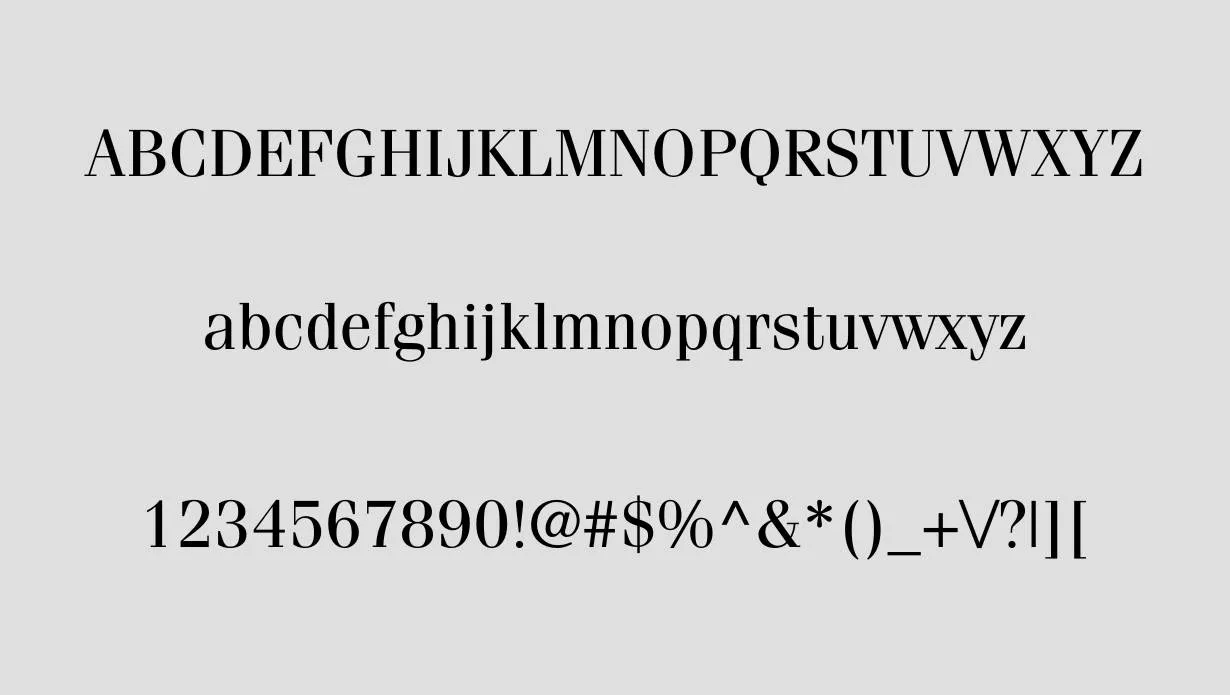
Happy Gilmore Font has a bold and impactful design, often used in headlines, posters, and graphic design where you want to create a strong visual statement.
Happy Gilmore Font Family
| Name | Happy Gilmore Font |
| Designer | Aldo Novarese |
Its robust letterforms add an element of power and memorability to your designs. TheĀ FreeSans Font offers a comparable style and characters, making it a suitable substitute for the font mentioned.